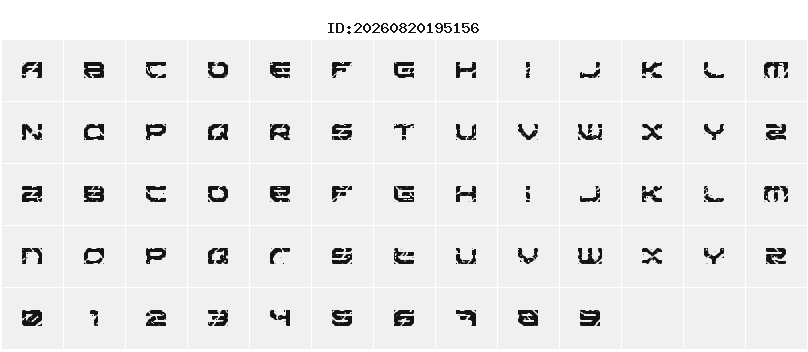
Sector 017 Preview
• Font Name: Sector 017
• Font ID: FontStruct Sector 017
• Full Font Name: Sector 017 Regular
• PostScript Name: Sector-017
• Designer: Neoqueto
About Sector 017.ttf
Sector 017.ttf is a modern, elegant sans-serif font designed for ultimate readability and visual harmony. Perfect for branding, headlines, web design, and print materials.